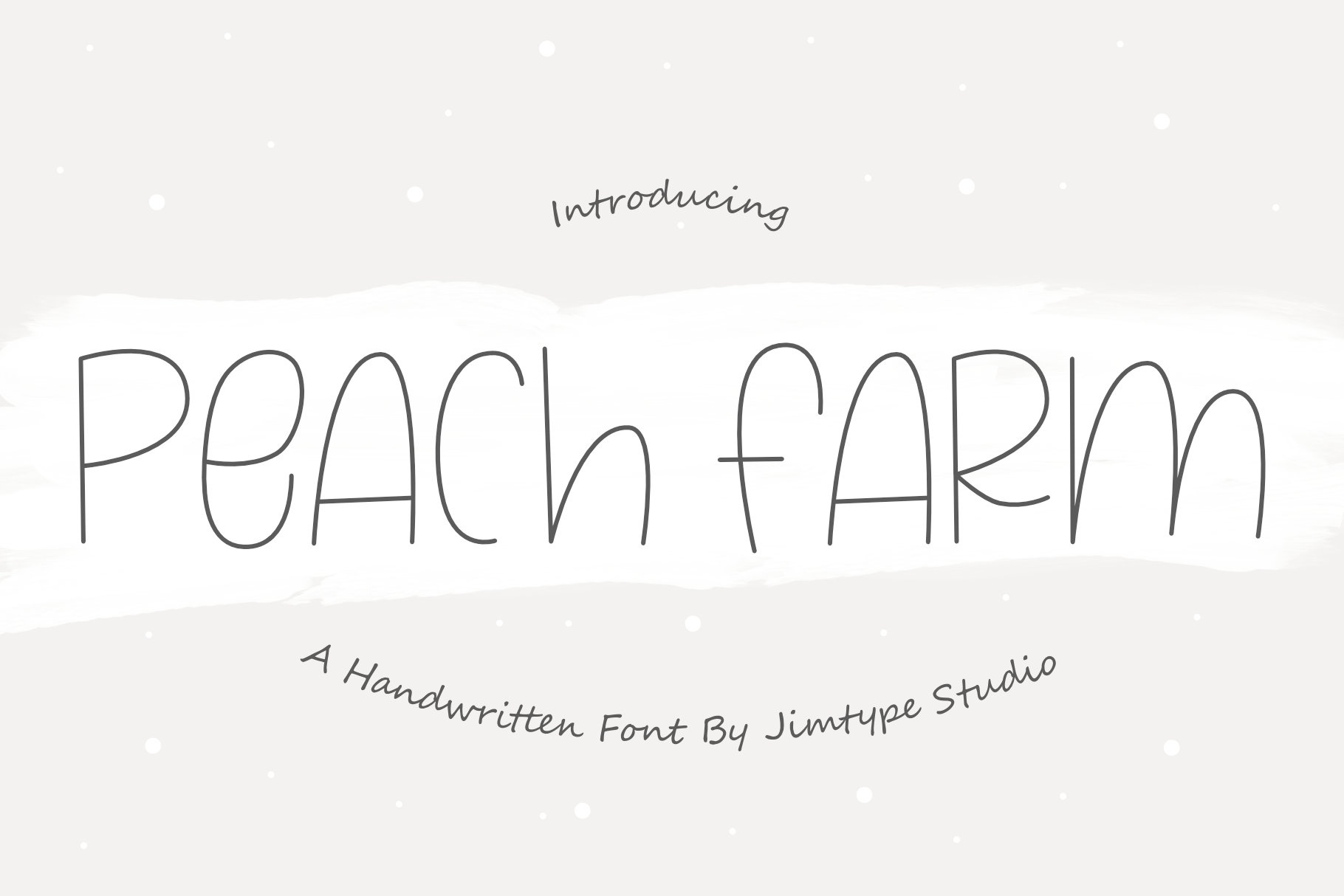
Peach Farm Font
Peach Farm Font is an all-caps font. This font perfects for farmhouse design, shirts, mugs, feminine projects, quotes, printed, and much more!